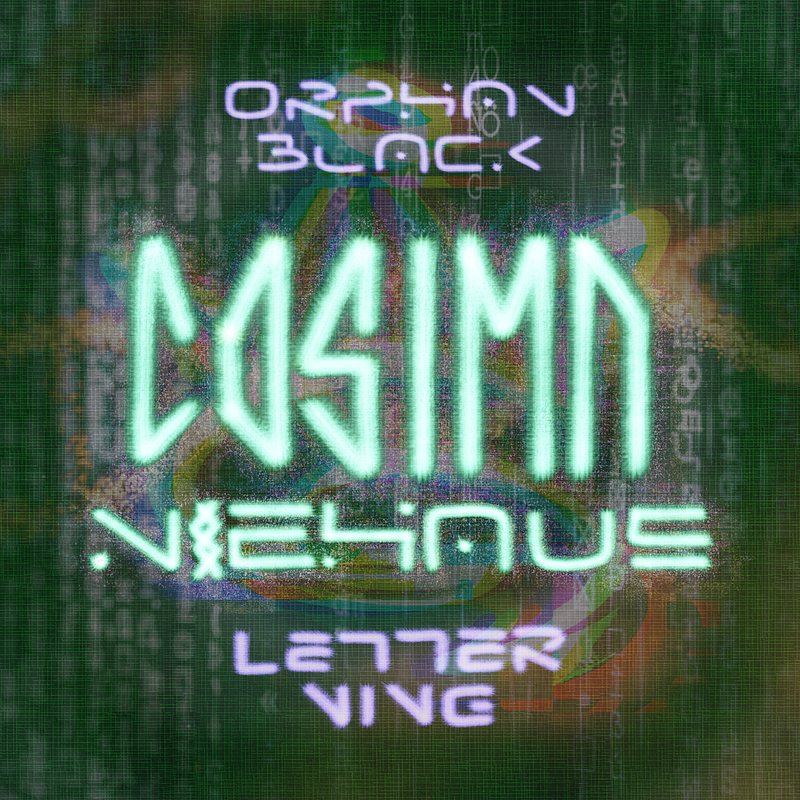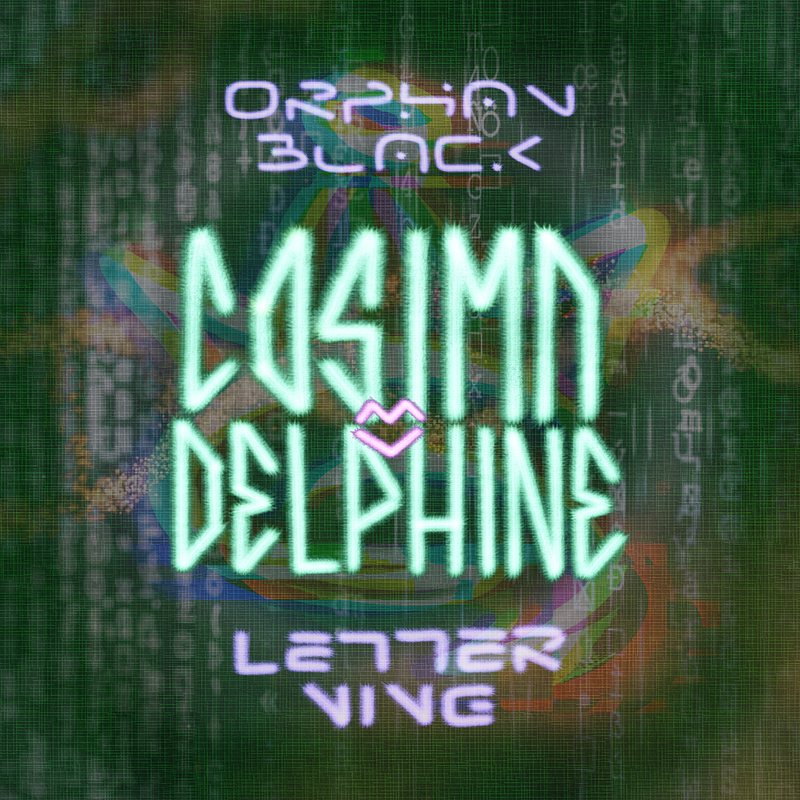
The Pride Month Lettering 00008-Cosima Niehaus from Orphan Black
I love Orphan Black, and Cosima is my favorite character out of all the amazing ones played by Tatiana Maslany.
Her character is a perfect blend of intelligence and warmth, with a quirky, nerdy side that I find so endearing. Her passion for solving problems only matches her love for her loved ones.
And let's not forget her relationship with Delphine, which started rocky but became incredibly strong as they faced tough challenges together.
Inspired by her scientific background and the show's sci-fi elements, I created a lettering piece with a sci-fi theme in honor of Cosima. I took inspiration from a lot of typefaces and mixed them up to suit my taste.